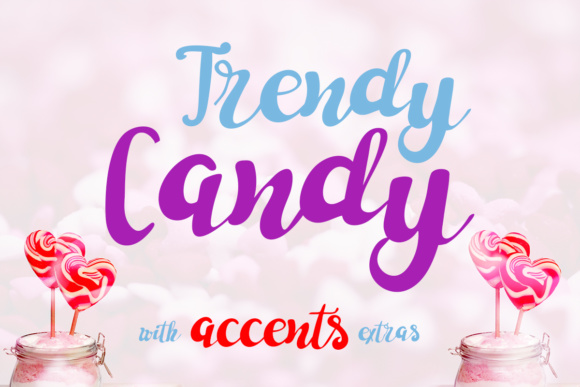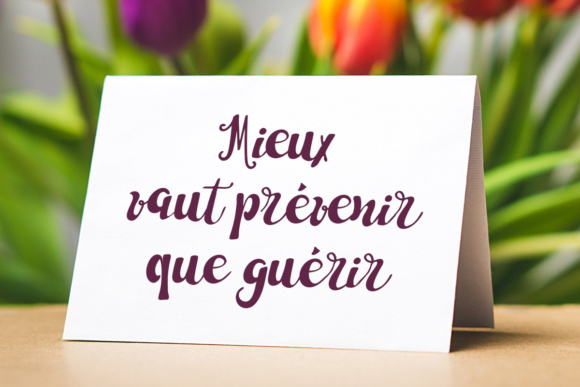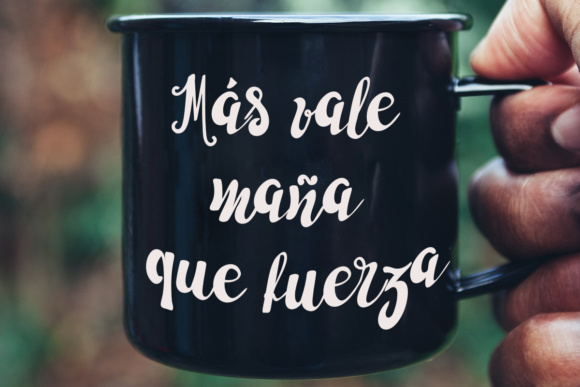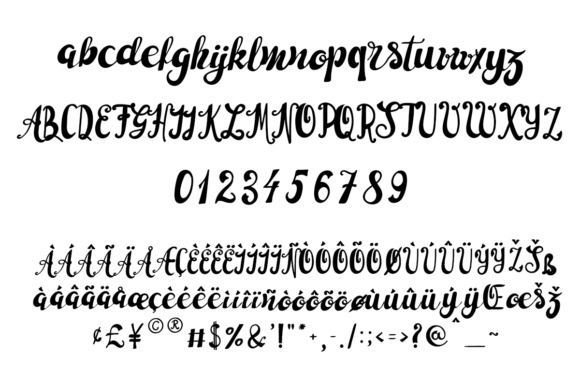
Trendy Candy Font
About Trendy Candy Font
Trendy Candy is a unique signature font, designed to bring fun into your crafting.
It’s perfect for cards, mugs, birthday invitations and quotes.